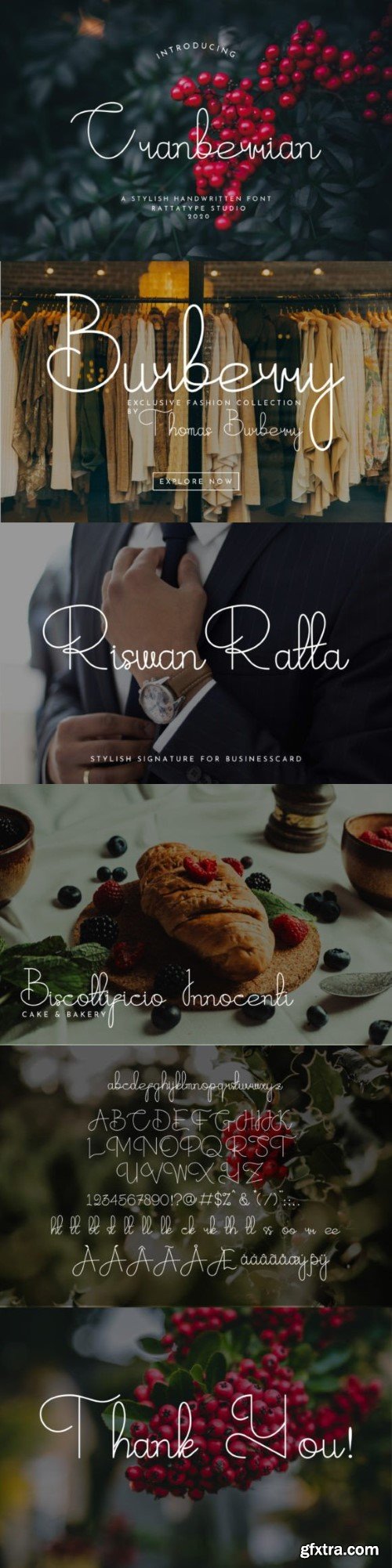
cranberrian字体
CRANBERRIAN Typeface is a beautiful, luxurious, and elegant handwritten style font.
CRANBERRIAN Typeface is very fashionable and elegant for use in photography, weddings, signatures, fashion tag lines, food and beverage, logos, and others.